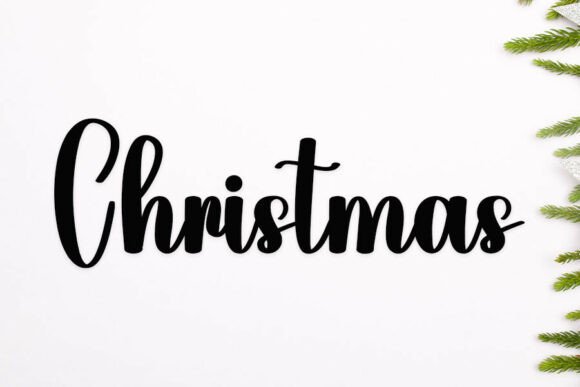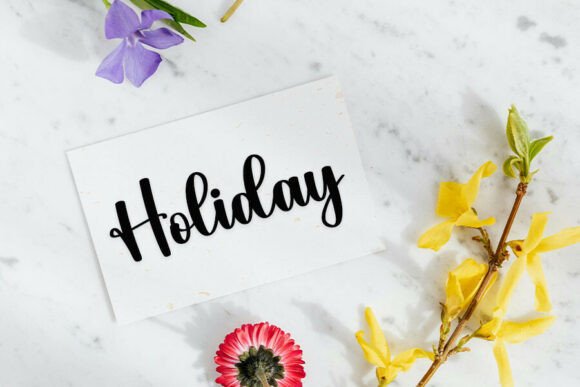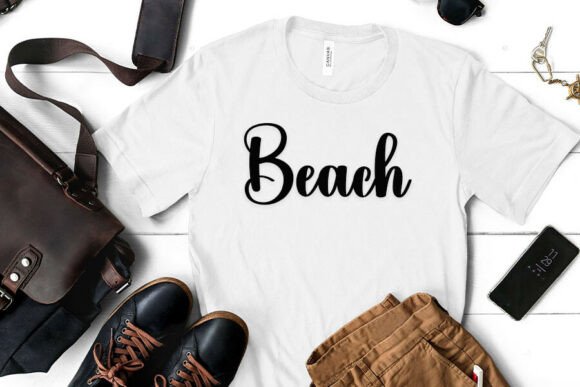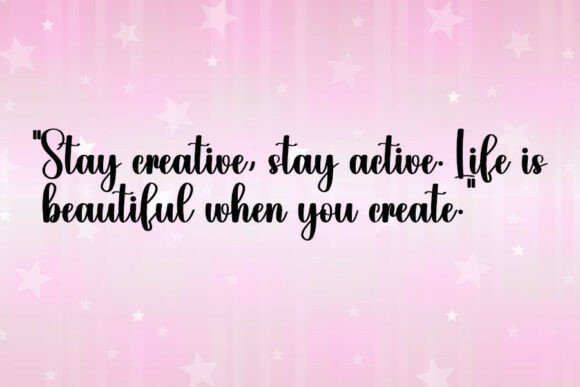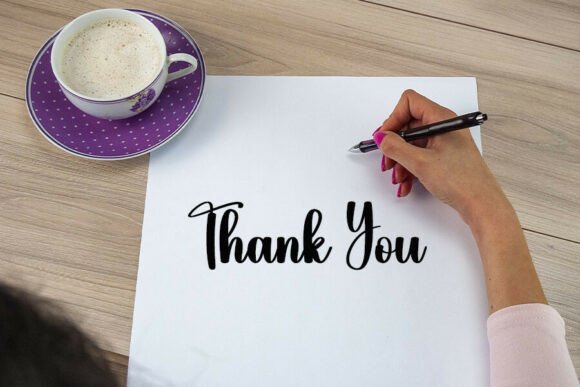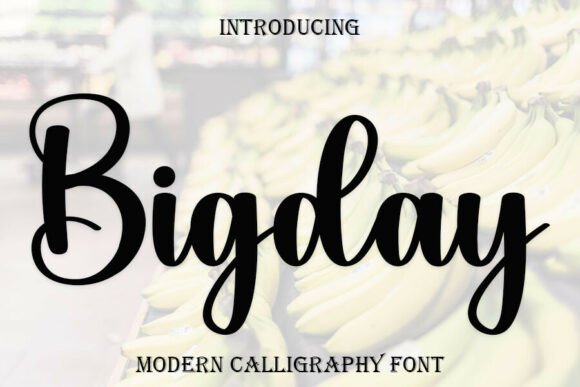
The Elegance of Bigday Font: Elevating Your Designs with Timeless Sophistication
I still remember the design project that made me fall in love with the Bigday font. I was working on a wedding invitation suite for a luxury wedding planner, and I needed a font that exuded elegance and sophistication. After hours of searching, I stumbled upon Bigday, and it was love at first sight. The flowing script, the dramatic swashes, and the high-contrast strokes all came together to create a sense of grandeur and romance that perfectly captured the essence of the wedding. In this article, I’ll share my experience with Bigday, its features, and how to make the most of this stunning font.
What Makes Bigday Font So Special?
Bigday is an elegant and flowing modern calligraphy font that captures the grandiosity and grace of life’s most celebrated moments. Characterized by its dramatic, sweeping swashes and high-contrast strokes, this typeface radiates a sense of formal beauty and romantic timelessness. It’s specifically crafted for high-stakes design projects where elegance is non-negotiable, making it a premier choice for wedding suites, luxury event invitations, and high-fashion branding.
An Honest Review of Bigday Font
What I Love About Bigday Font
- ✨ Elegant and sophisticated design that’s perfect for high-end projects
- ✅ High-contrast strokes and dramatic swashes that add a touch of grandeur
- 💫 Smooth, lyrical flow that creates a sense of movement and harmony
- 🎨 Versatile and can be used for a variety of design projects, from wedding invitations to luxury branding
While Bigday is an exceptional font, there are a few things to keep in mind. ⚠️ It may not be the best choice for body text or long-form content, as its elegant design is better suited for headlines and titles. 🤔 Additionally, some users may find the font’s intricate flourishes and swashes challenging to work with, especially when it comes to pairing it with other fonts.
The Backstory of Bigday Font
Bigday was designed by a team of skilled typographers who wanted to create a font that would capture the essence of luxury and sophistication. Inspired by traditional calligraphy and modern script fonts, Bigday was crafted to be a versatile and elegant typeface that would elevate any design project. Whether you’re a designer, crafters, or creative hobbyist, Bigday is sure to become a favorite in your font collection.
Q: What is Bigday font best used for?
A: Bigday font is best used for high-end design projects, such as wedding invitations, luxury event invitations, and high-fashion branding.
Q: Is Bigday font suitable for body text?
A: No, Bigday font is not suitable for body text. Its elegant design is better suited for headlines and titles.
Q: Can I use Bigday font with other fonts?
A: Yes, Bigday font pairs well with clean, light-weight serif fonts for a classic “black-tie” editorial look.